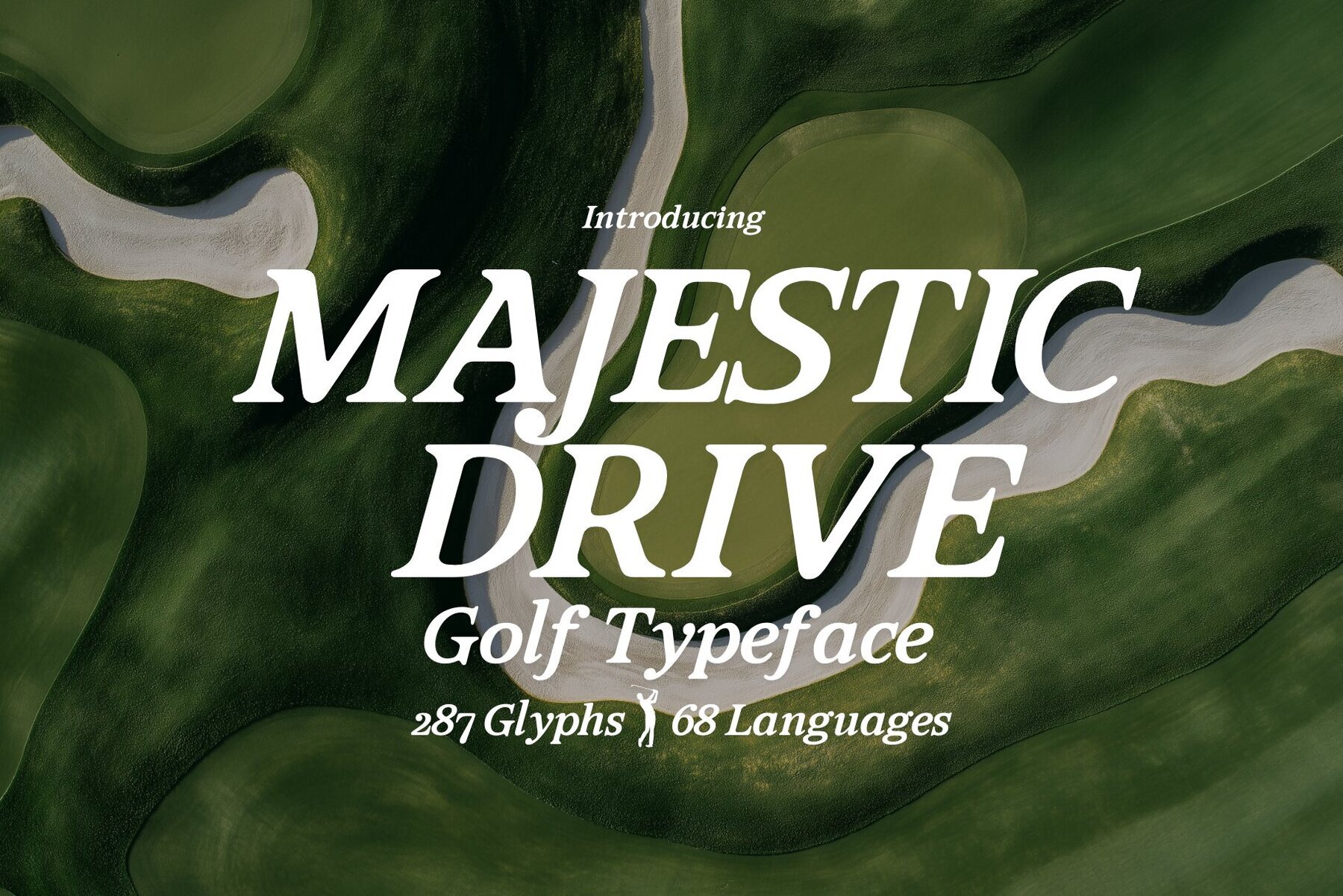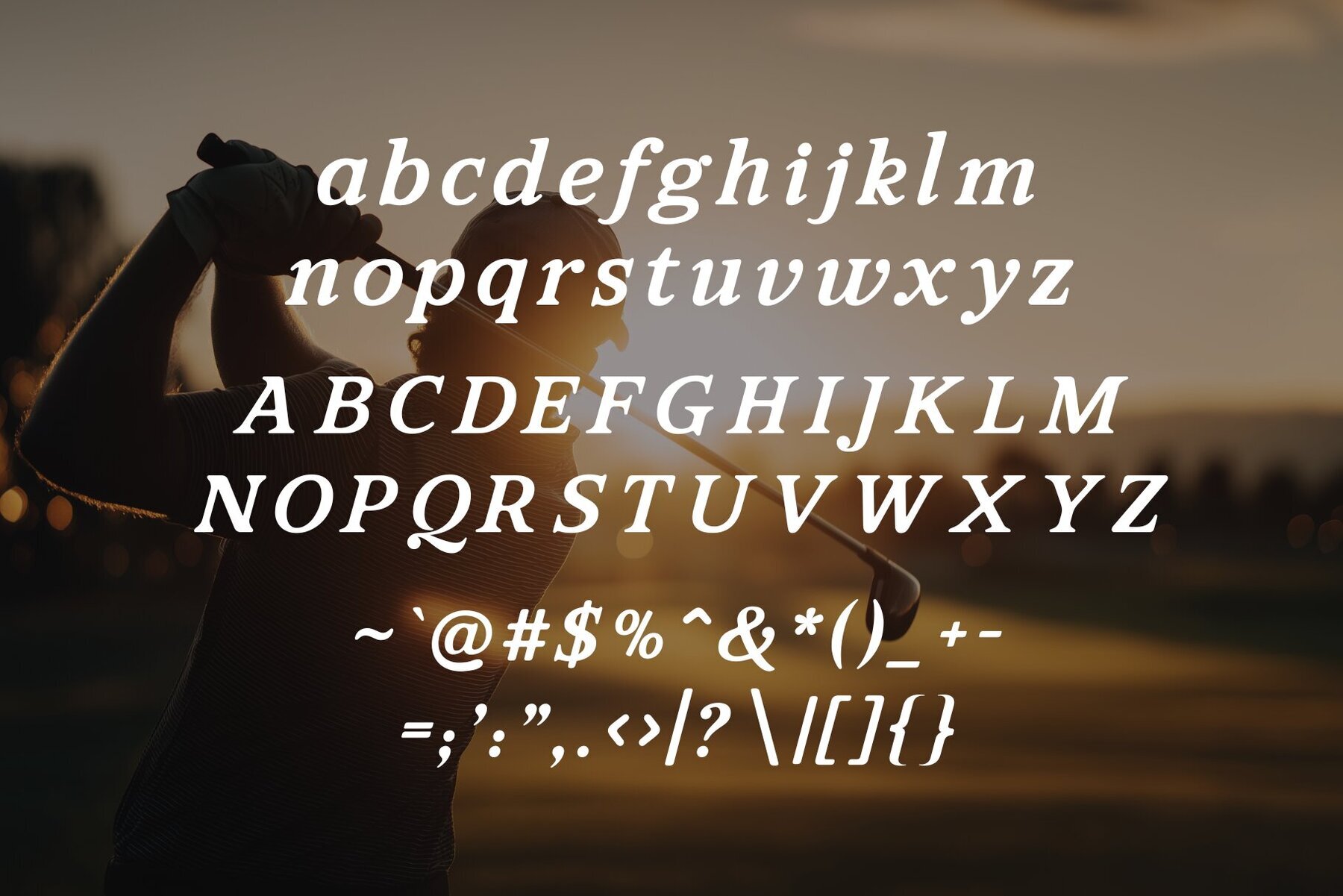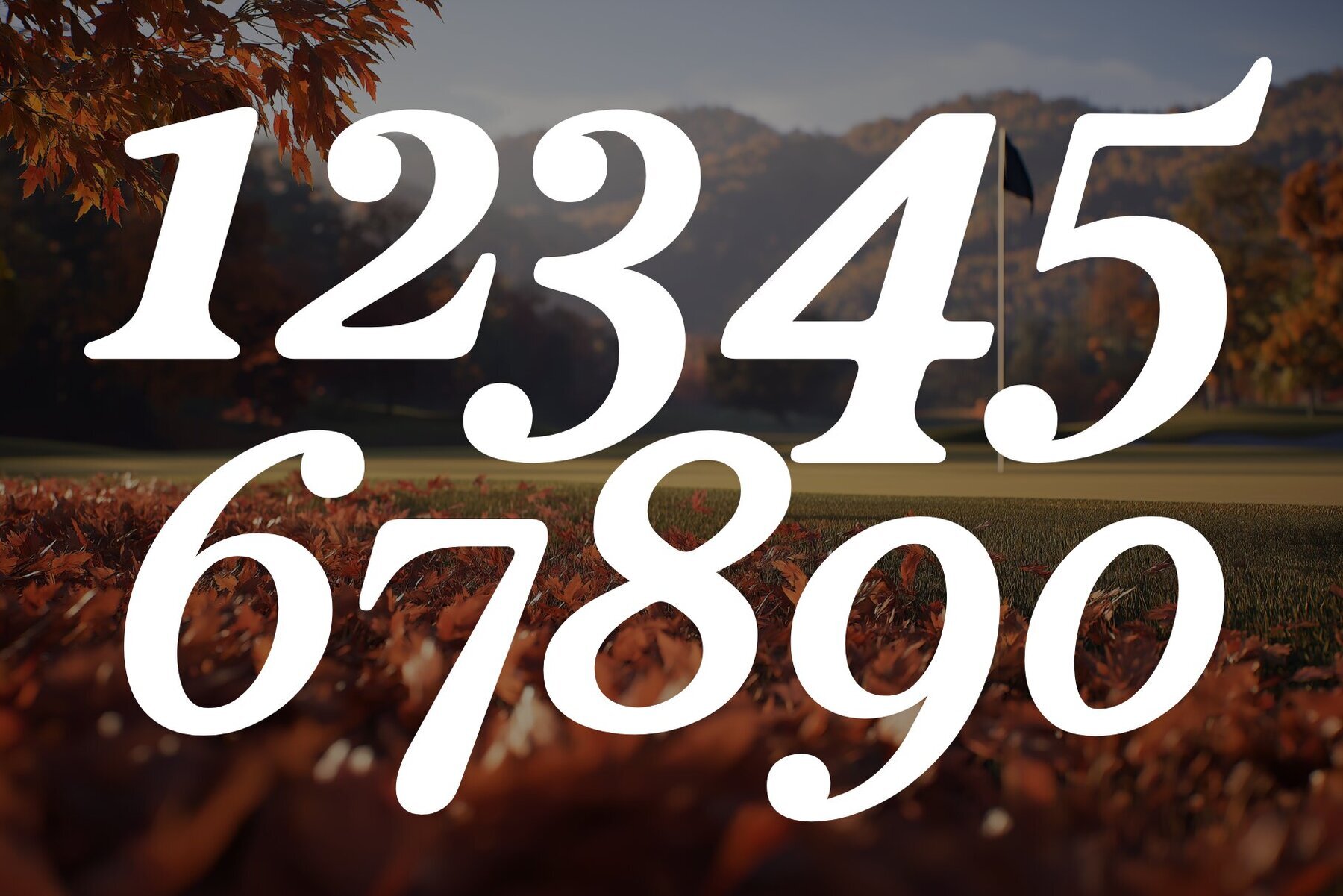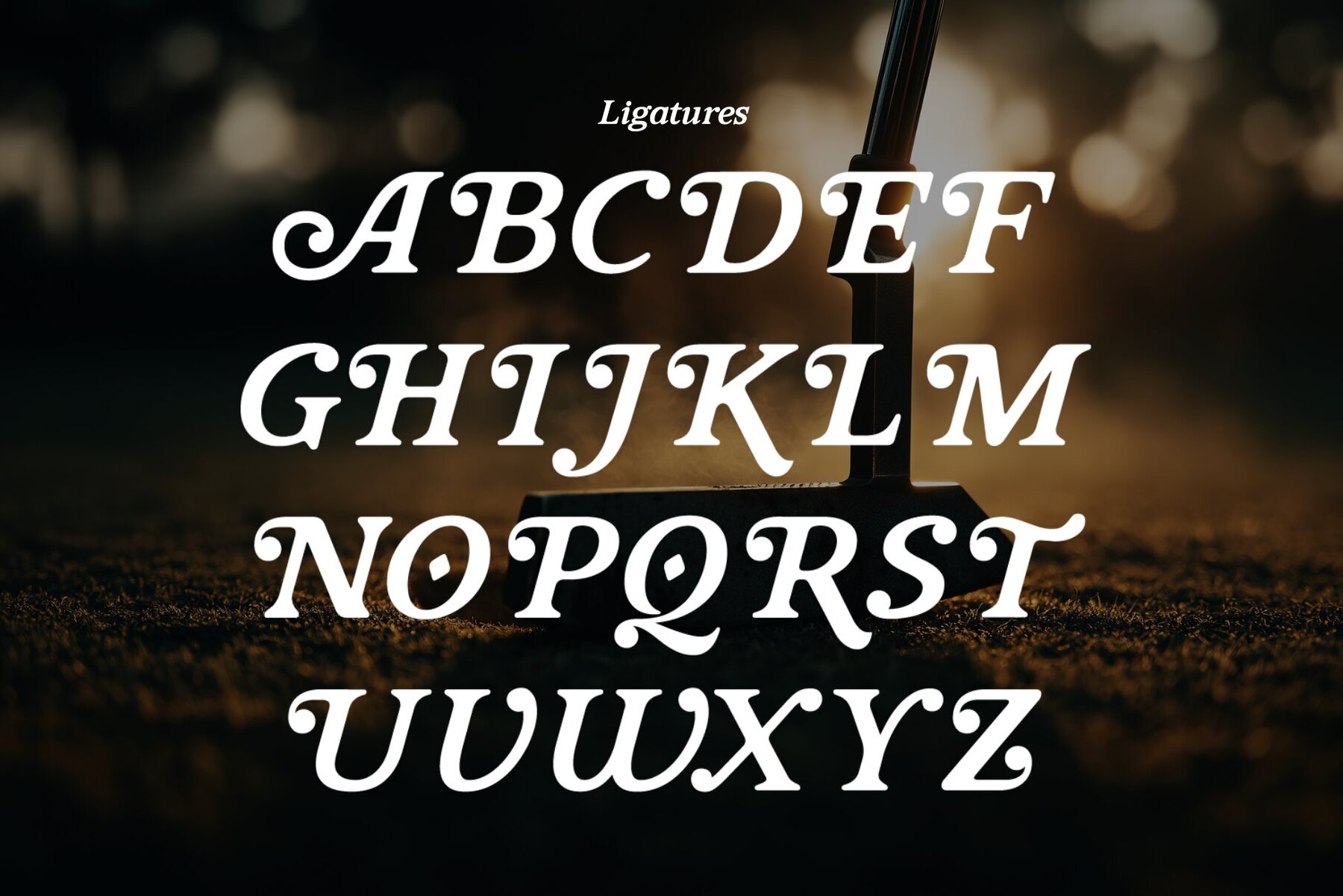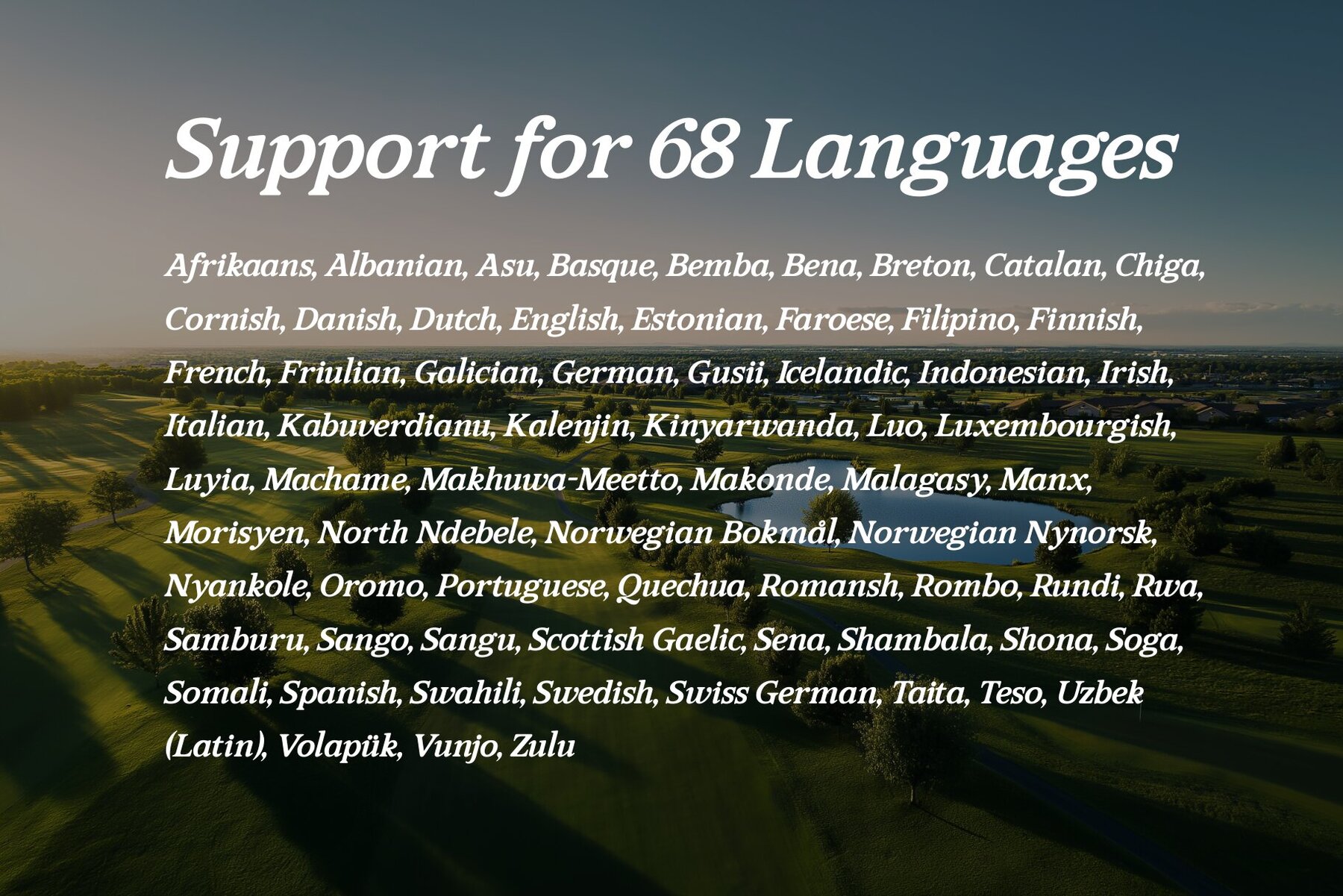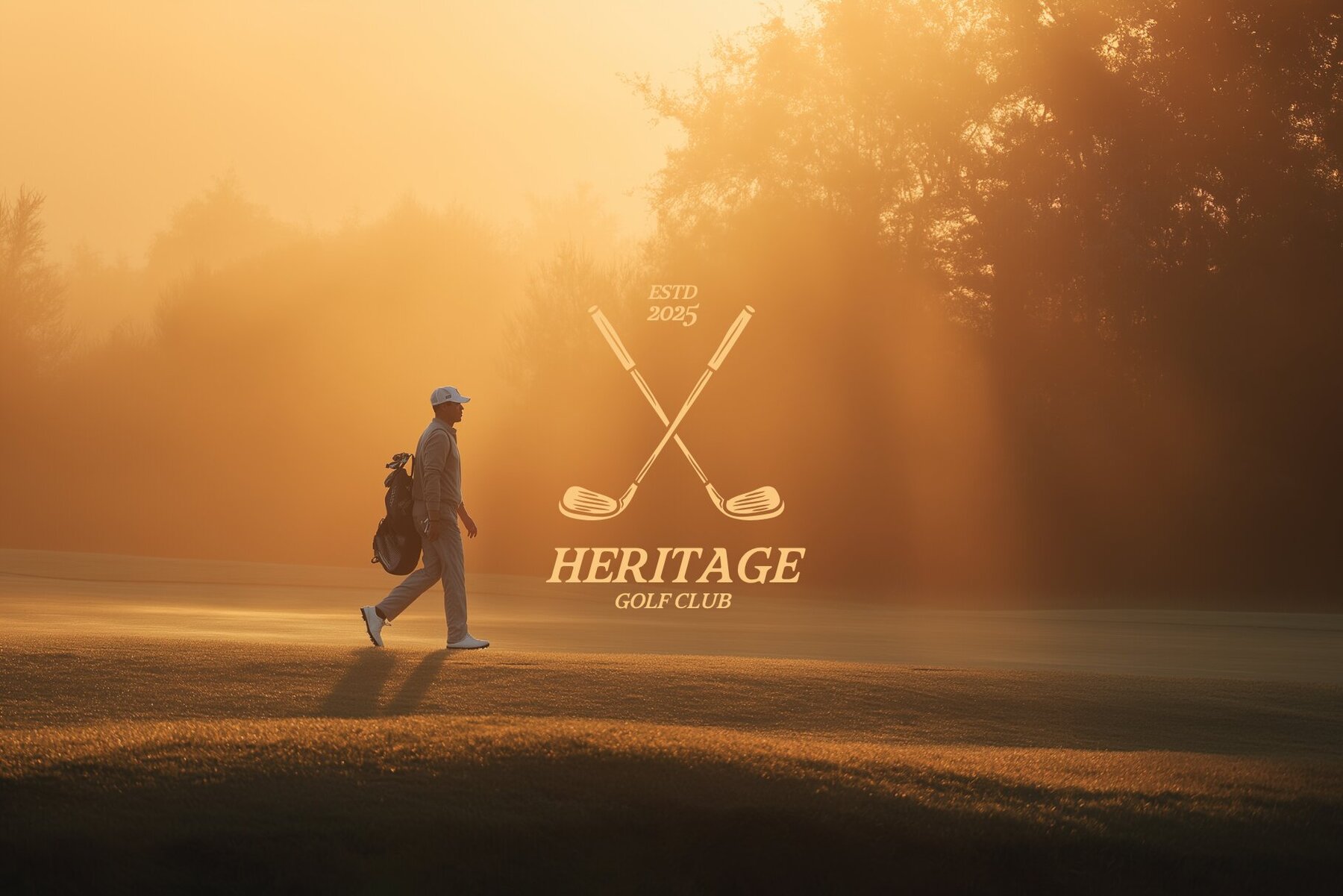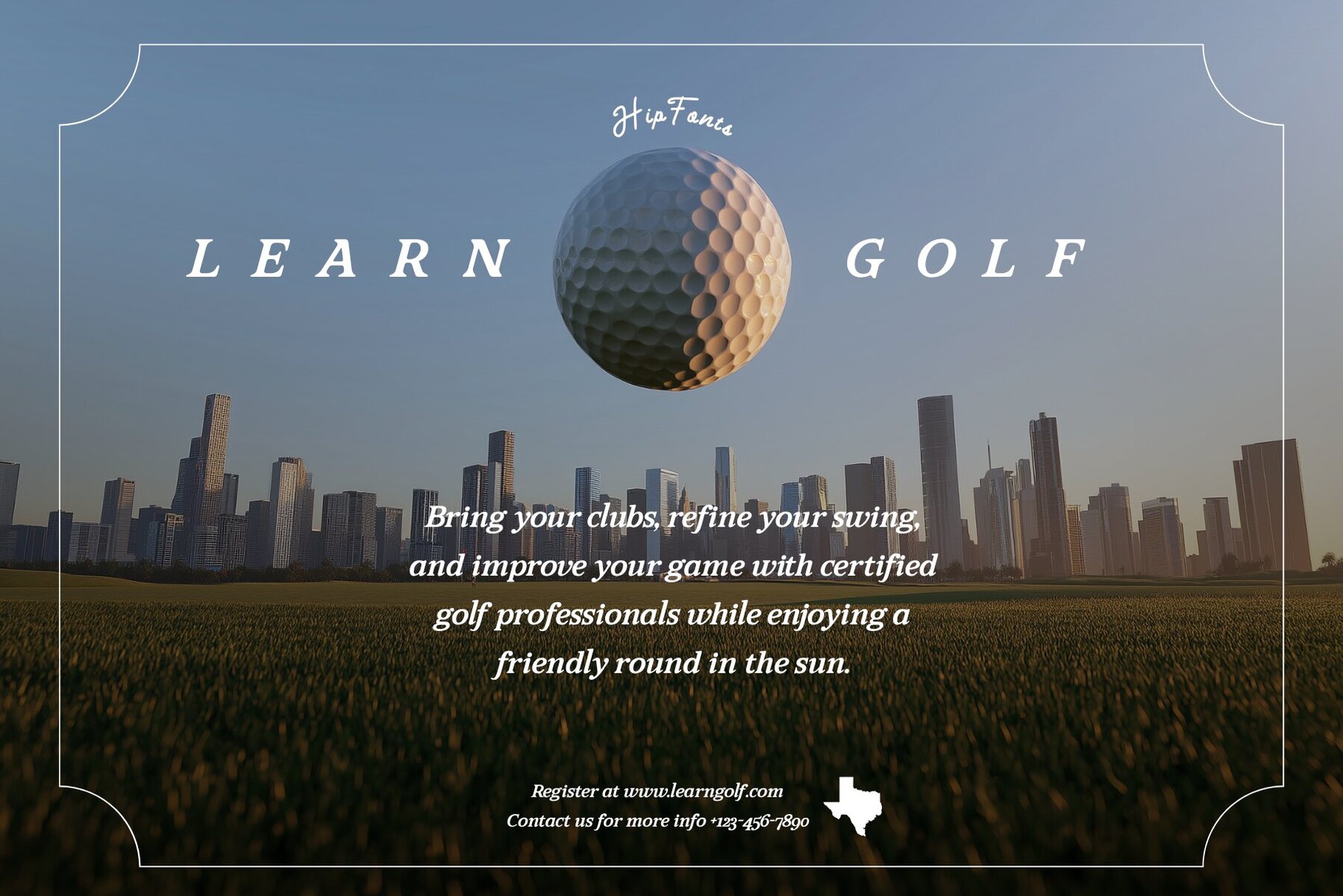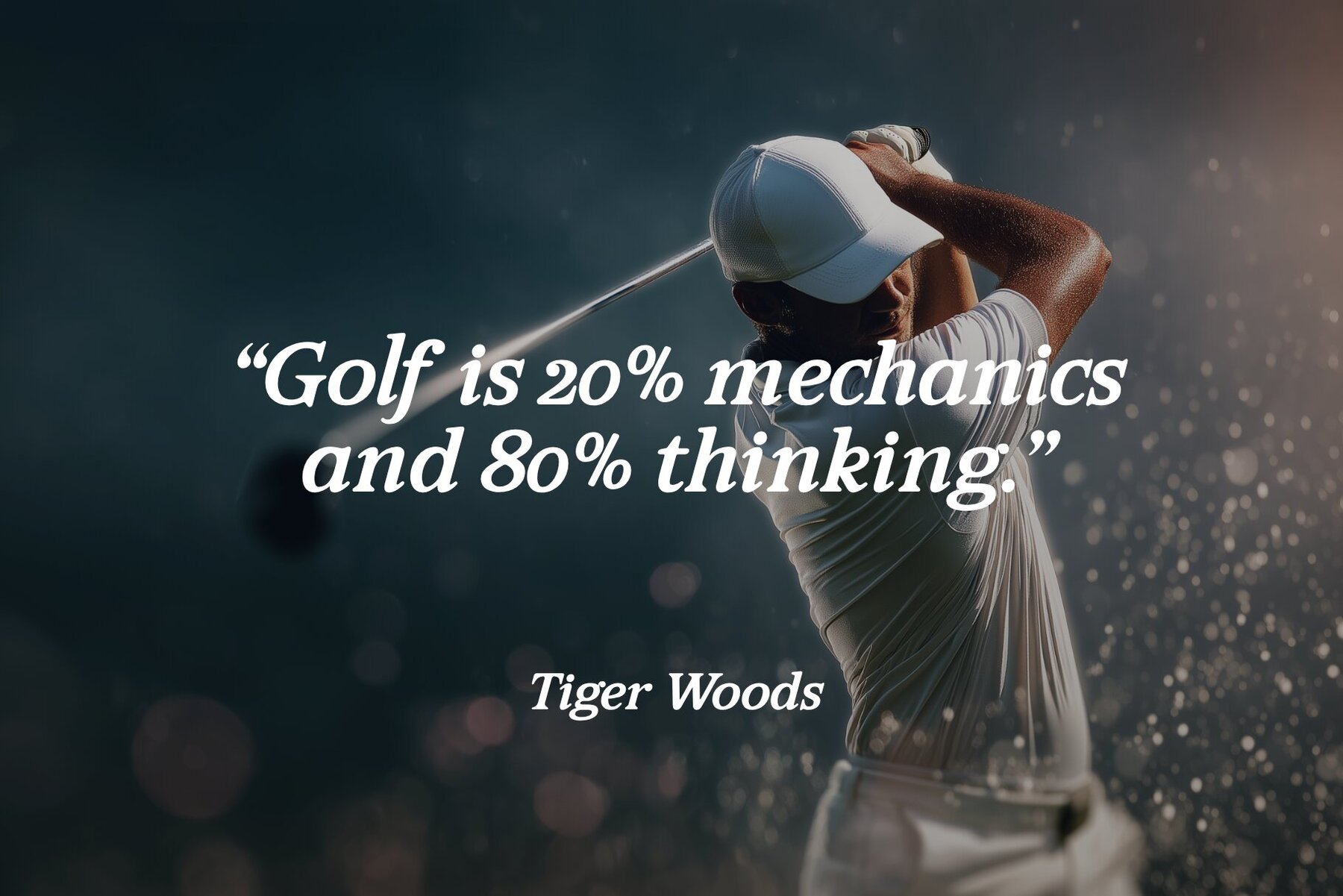
Majestic Drive Font
Majestic Drive Regular
Majestic Drive offers an atmosphere of sophistication and style, specifically curated for golf aficionados and esteemed brands. Its elegant, flowing lines and timeless allure make it the perfect choice for imparting prestige and class to any design. This typeface is particularly suited for logos, branding, and promotional materials, turning every letter into a statement of elegance. With its graceful curves and personal touch, Majestic Drive excels in wordmarks, signage, and marketing designs that command attention with authority and style.Majestic Drive: Script Typeface for Golf Aficionados